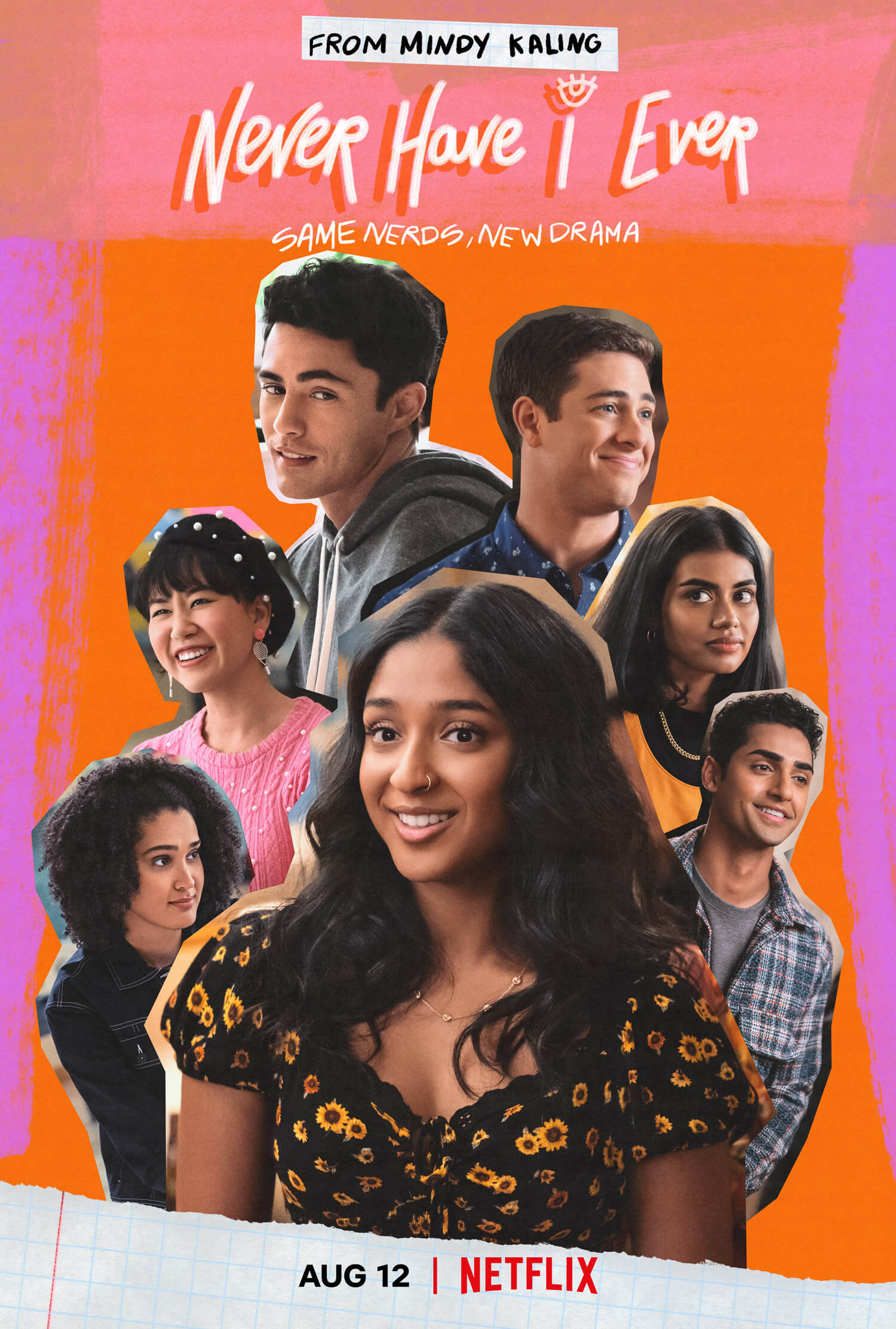
Never Have I Ever Font
ComedyNever Have I Ever is a coming-of-age comedy-drama television series created by Lang Fisher and Mindy Kaling. The series follows the life of a first-generation Indian-American teenage girl growing up in a traditional Indian household in Southern California.
The Never Have I Ever title on the poster seems to be hand-lettered. The opening credits and intertitles on the screen probably use Sign Painter Script. The Sign Painter Font Collection from House Industries is a font collection based on hand lettering.